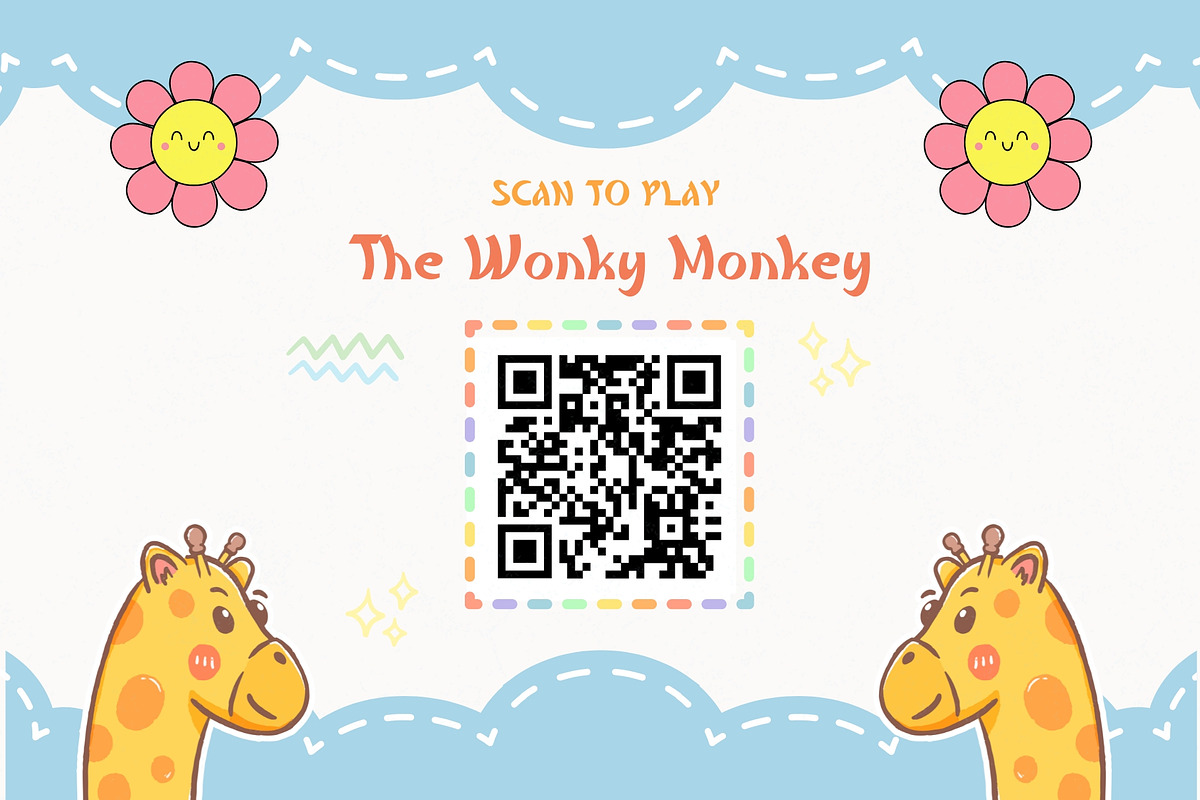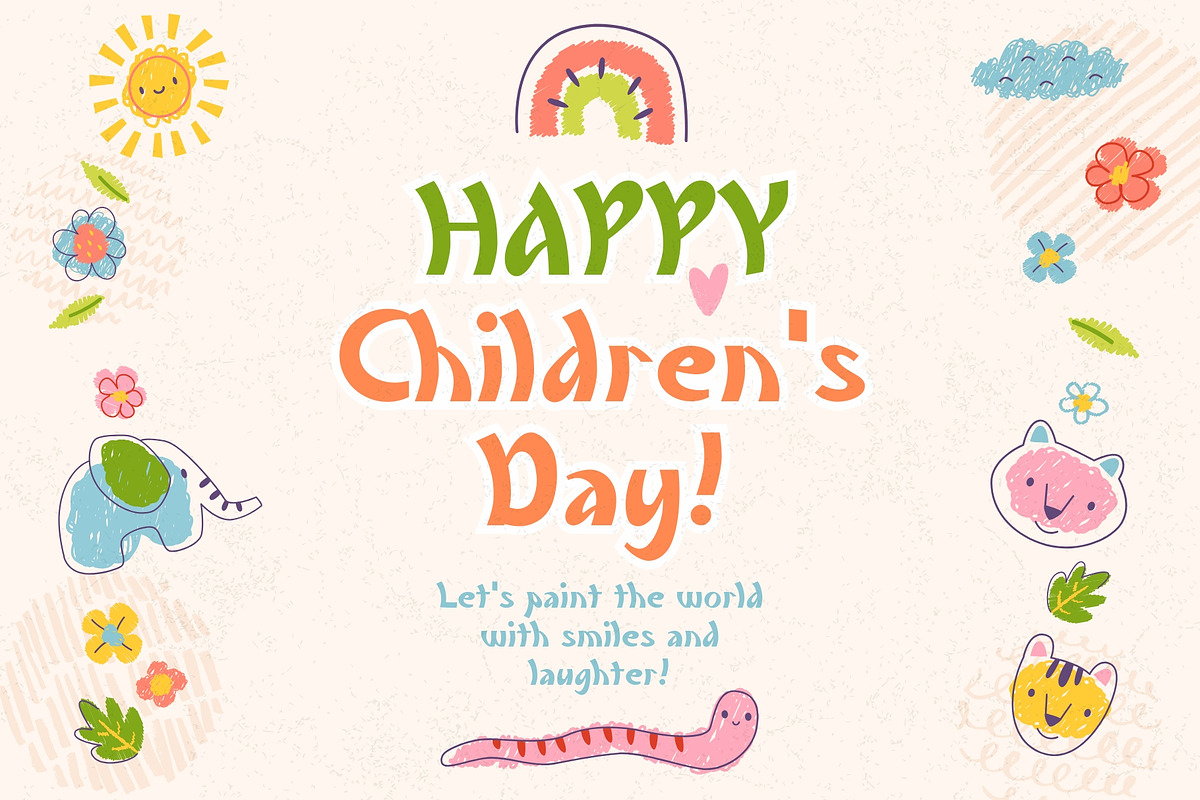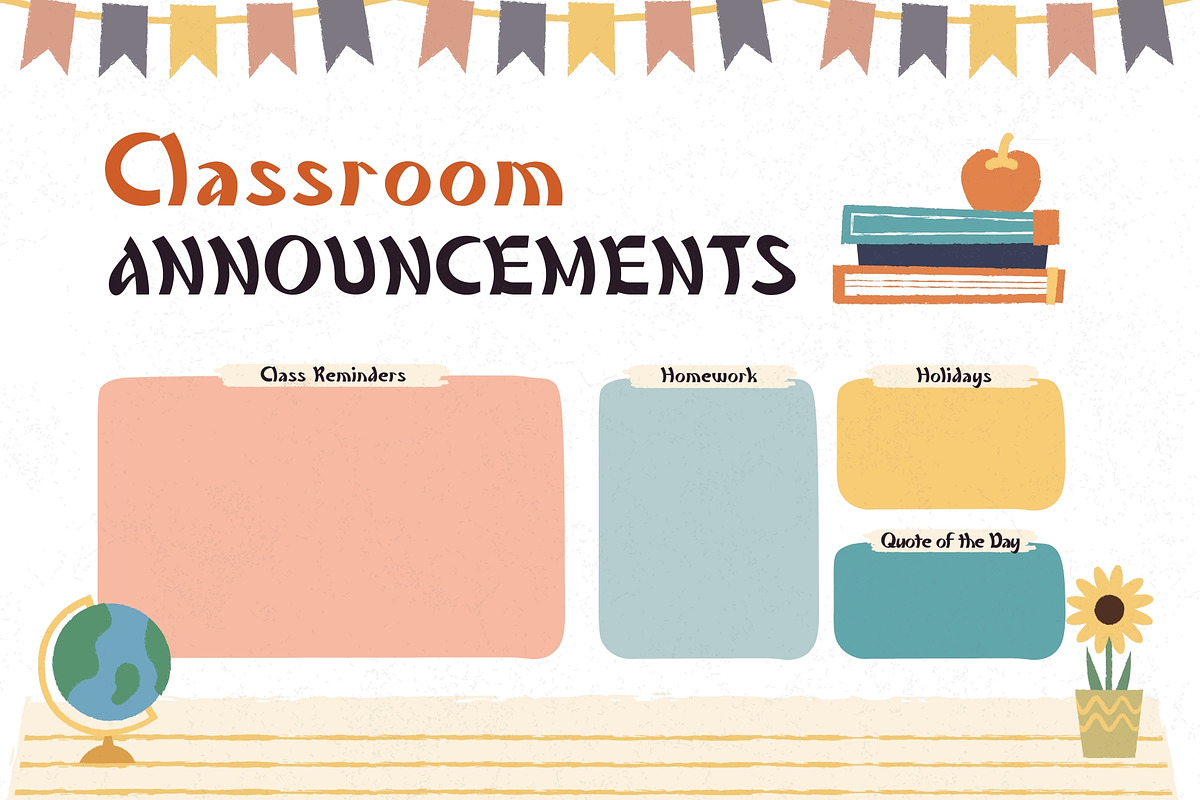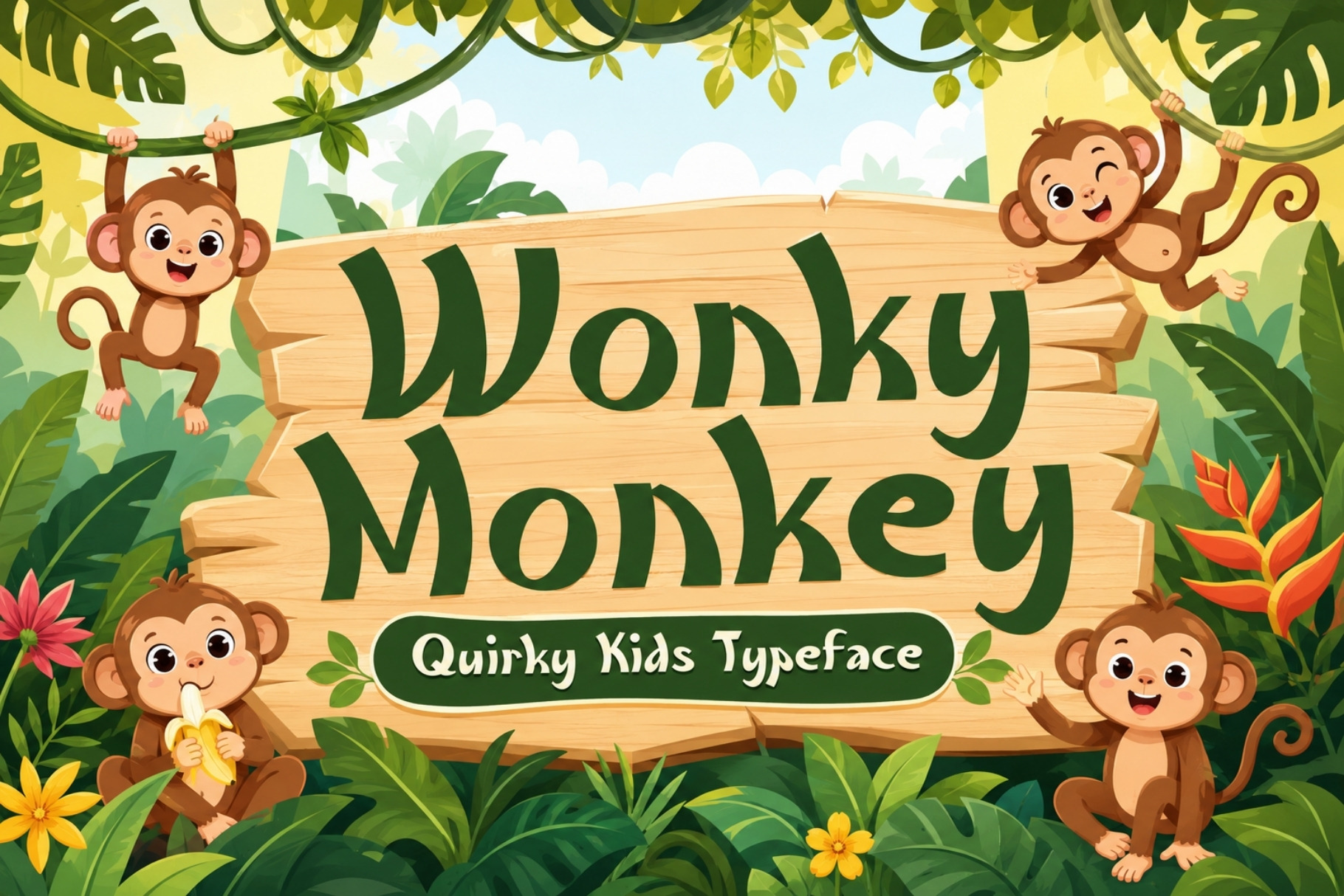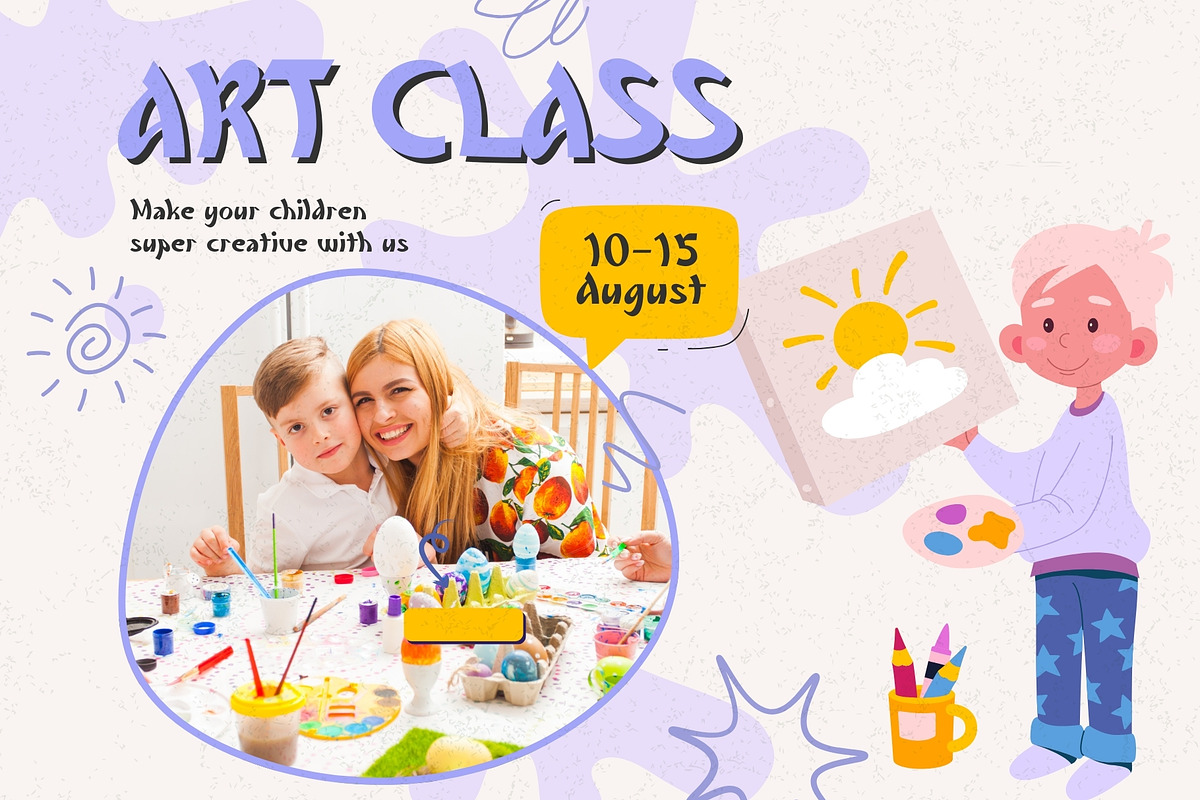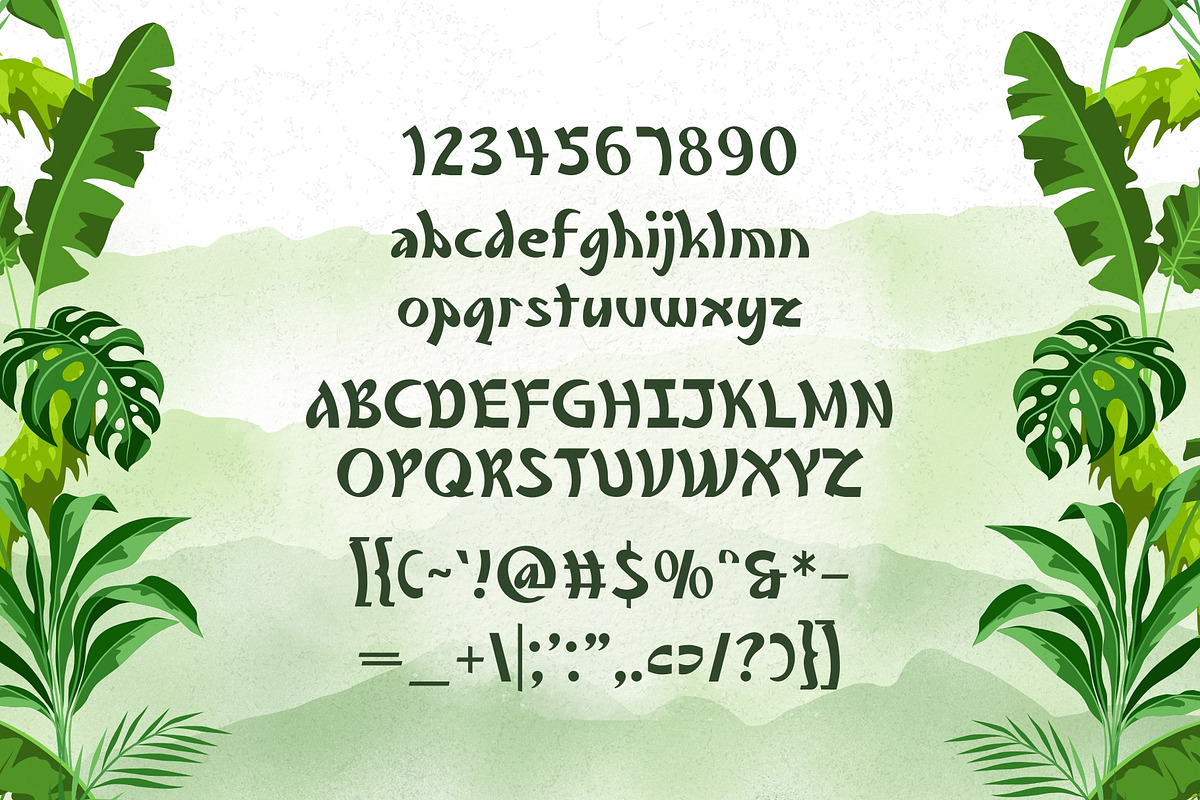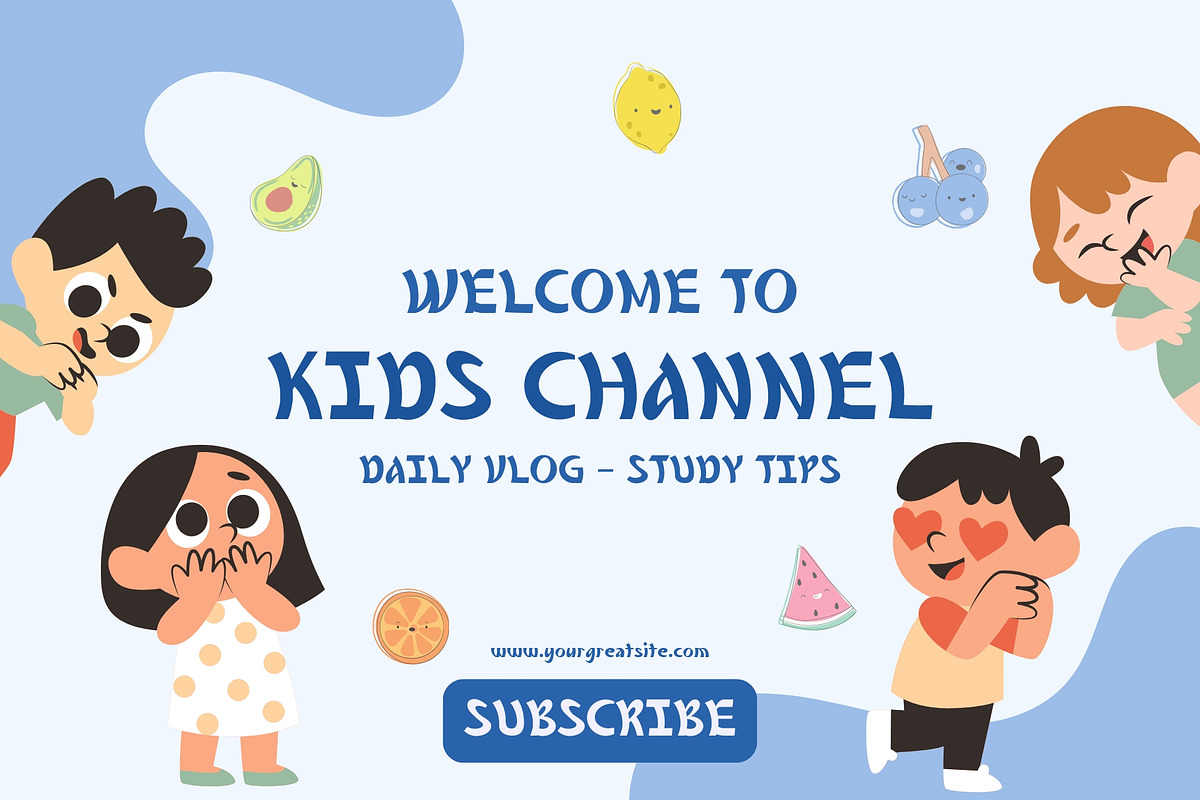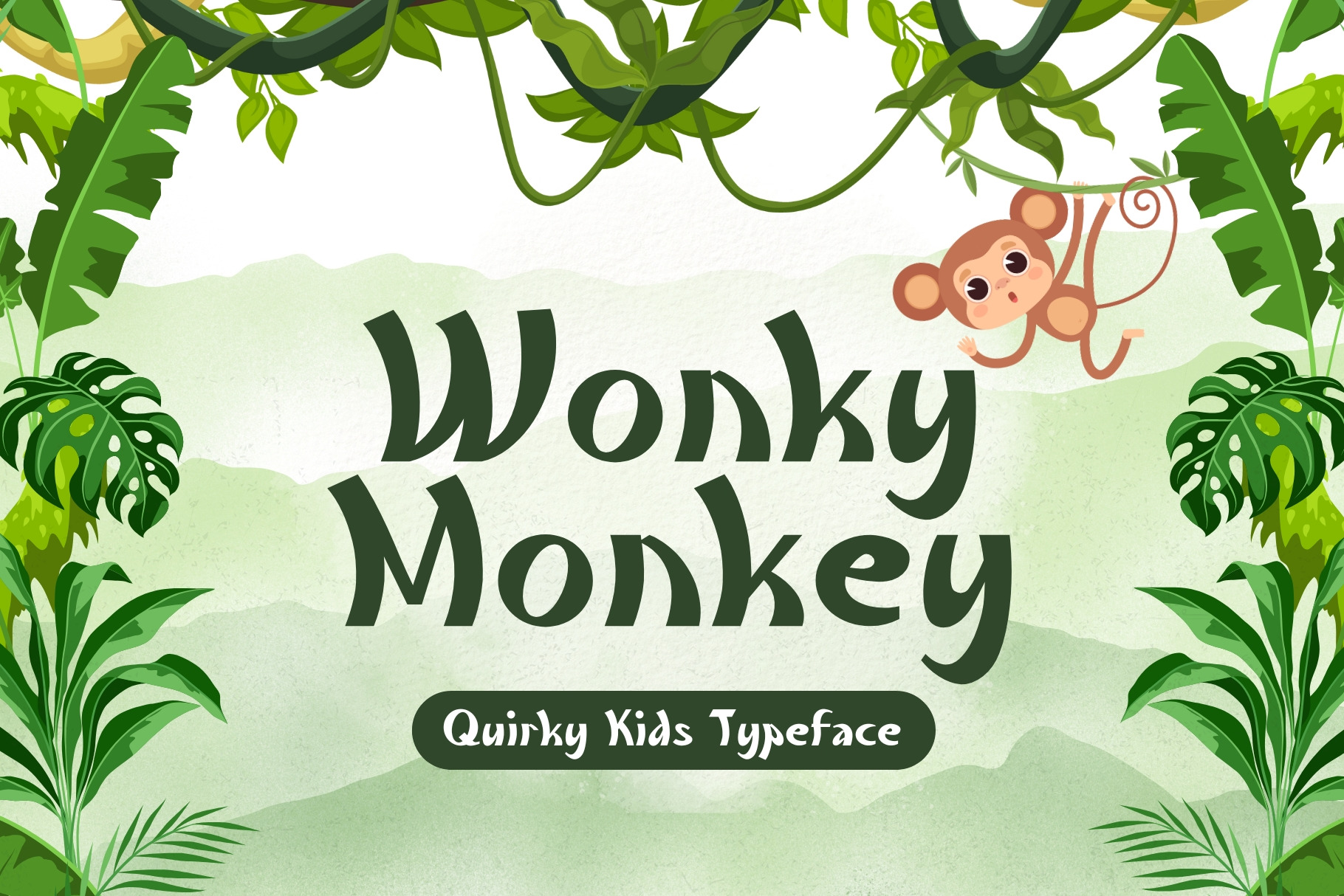
Wonky Monkey - Playfully Quirky Font
Get ready for a wildly fun and wonderfully weird typeface—introducing Wonky Monkey! This quirky, offbeat font is anything but ordinary, and that’s exactly what makes it so charming and memorable. With its playful, uneven letterforms and lighthearted personality, Wonky Monkey brings joy and creativity to every project.
Perfect for schools, teachers, classrooms, kids' activities, flyers, invitations, posters, birthday parties, and more, this font adds a touch of silly, wacky fun wherever it goes. Whether you're designing for young learners or playful brands, Wonky Monkey is here to make your text stand out in the most delightful way!
Embrace the quirkiness and let your imagination run wild with Wonky Monkey—because being different is what makes it special! 🐒🎨